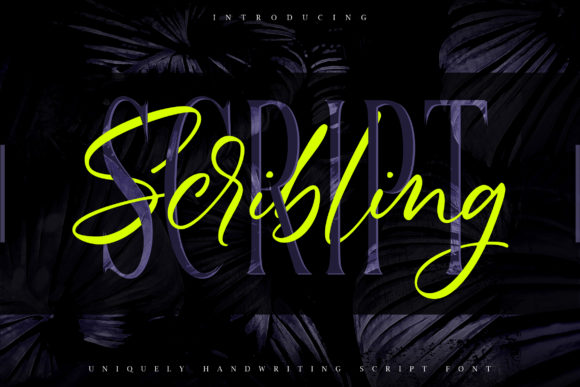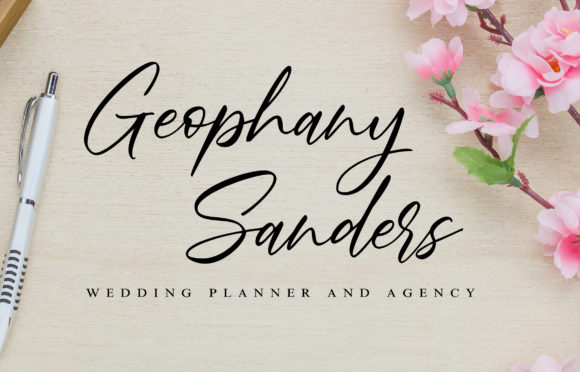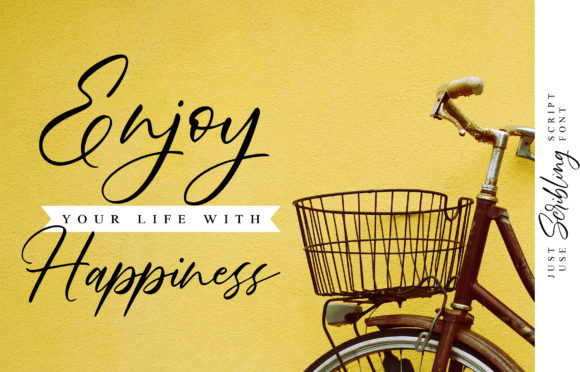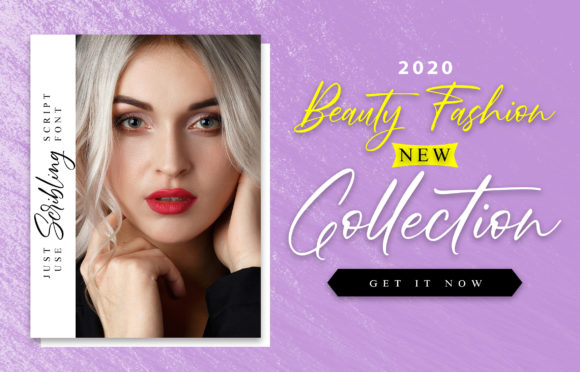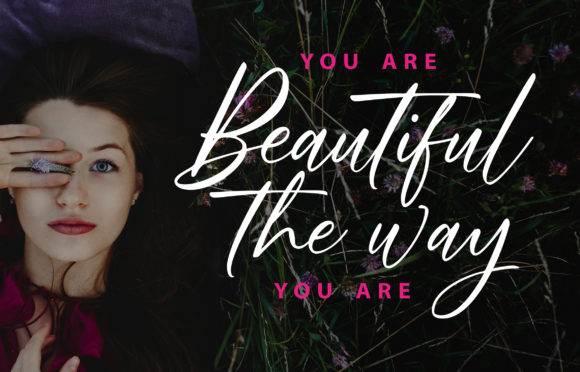
Scribbling Font
About Scribbling Font
Scribbling is a beautiful handwritten font carefully created with a touch of elegance. This is a beautiful combination of timeless elegance and authentic calligraphy.